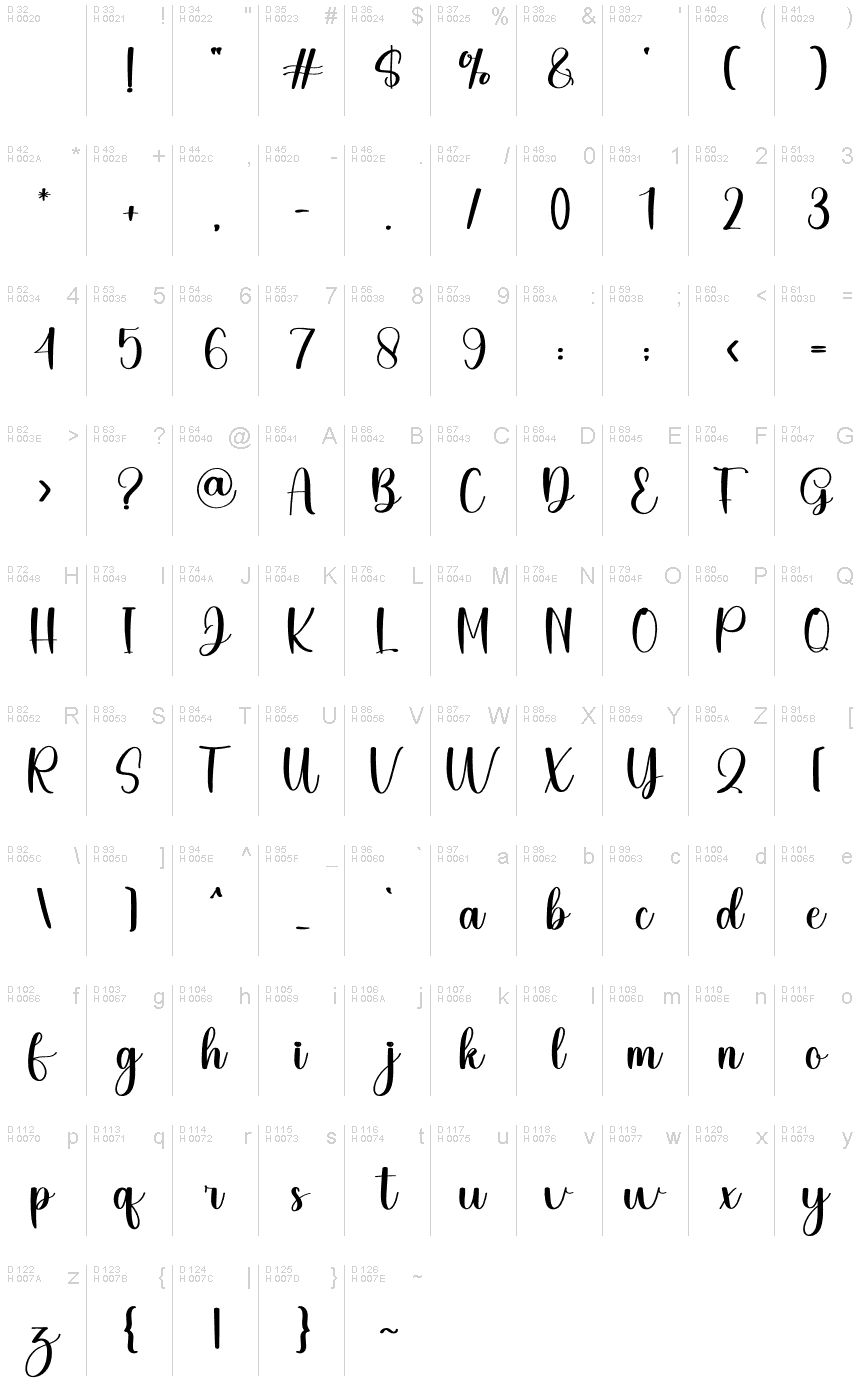
Buddy
Buddy, a beautiful handwritten font designed by Inermedia Studio, adds a touch of elegance to any project.
Its flowing curves and natural strokes make it perfect for creating invitations, greeting cards, and personal stationery. With its charming appearance, Buddy brings warmth and personality to wedding announcements and baby shower invitations. Additionally, its legibility lends itself well to food packaging designs or menu boards for cafes and bakeries. Whether used for product labels or social media graphics, Buddy effortlessly captures attention with its unique charm.
Let your creativity flourish with the versatile Buddy font!